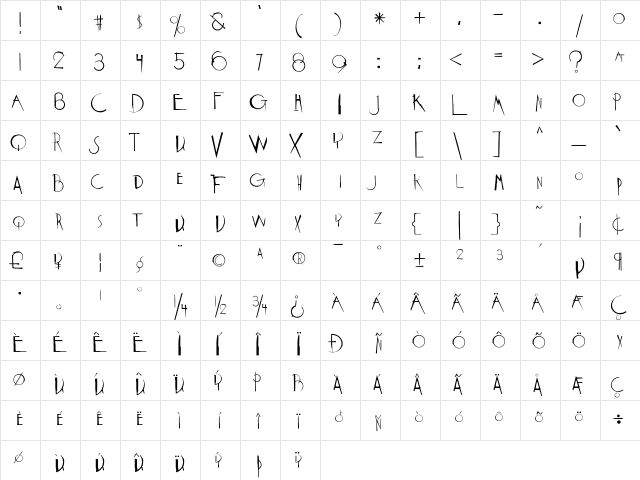
Epicure Regular
Design Context for Epicure Typeface
Epicure is a composed and adaptable typeface that performs quietly and consistently across a wide range of design contexts.